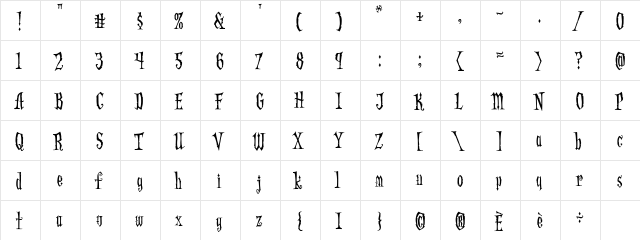
CCAltogetherOoky Regular
Design Context for CCAltogetherOoky Typeface
CCAltogetherOoky is a composed and adaptable typeface that performs quietly and consistently across a wide range of design contexts.